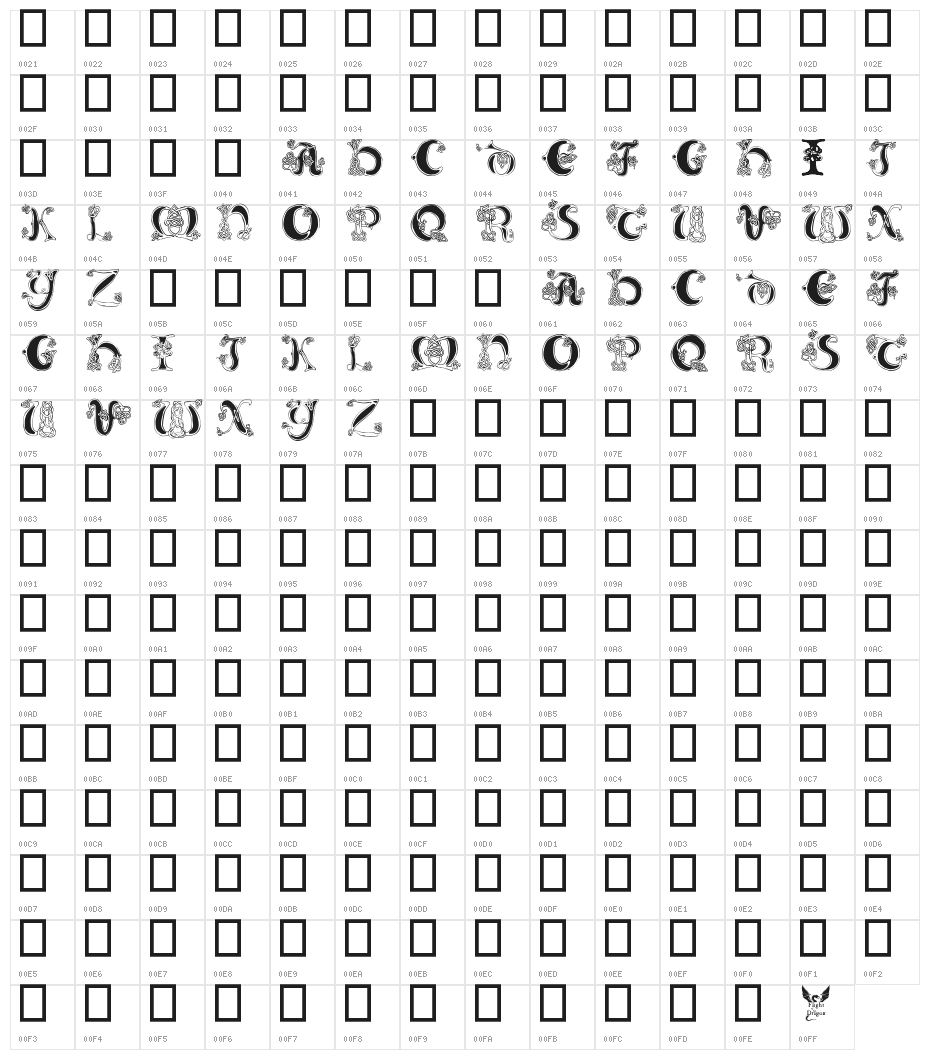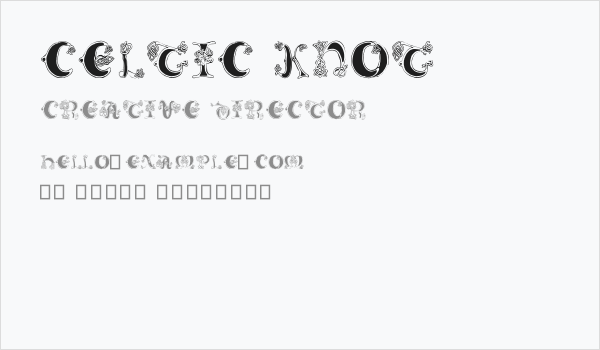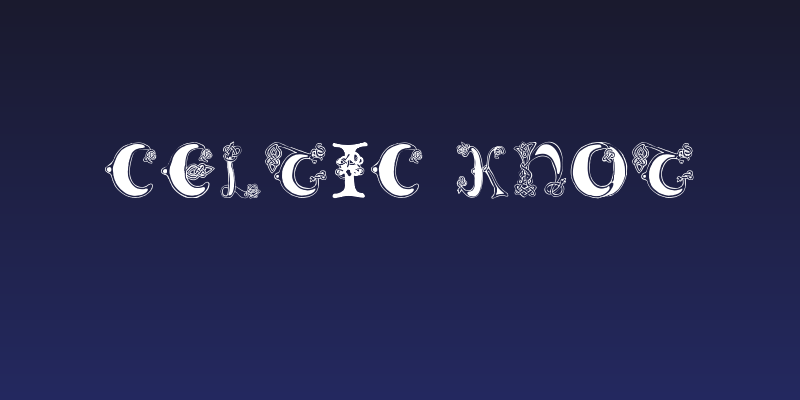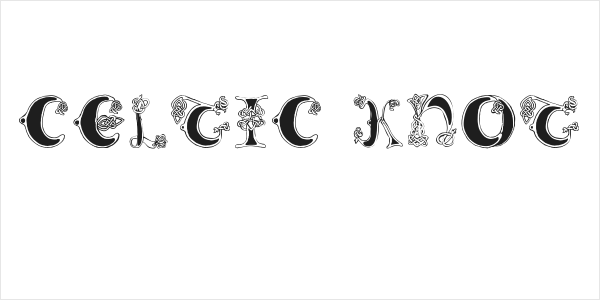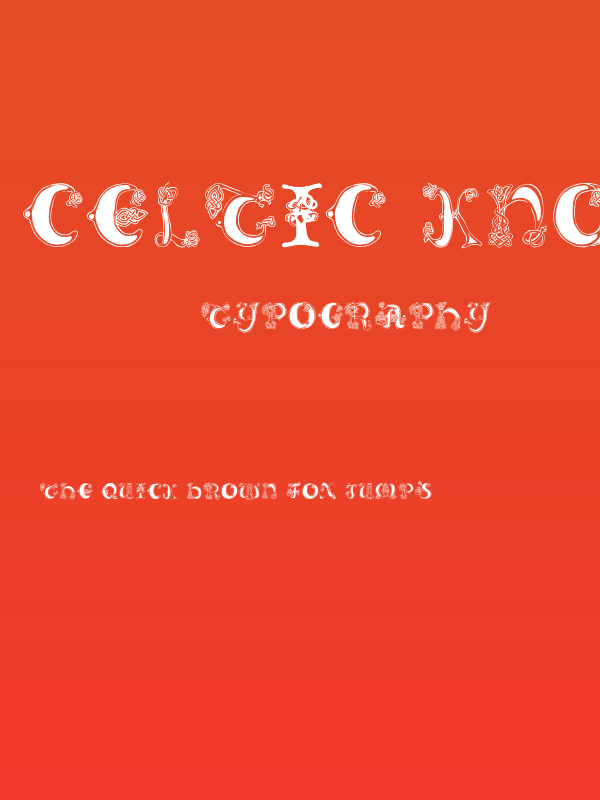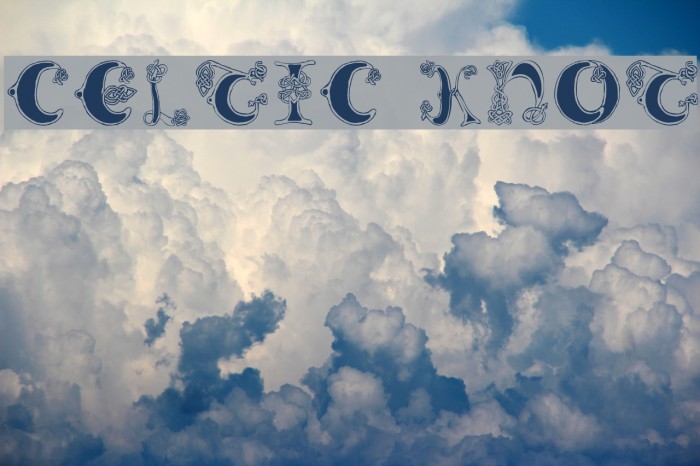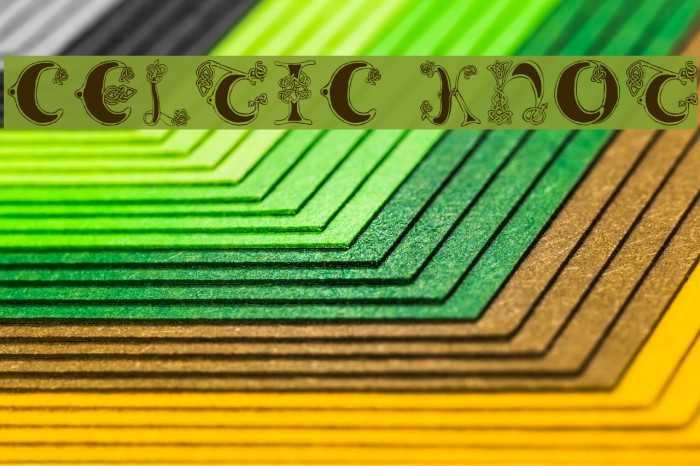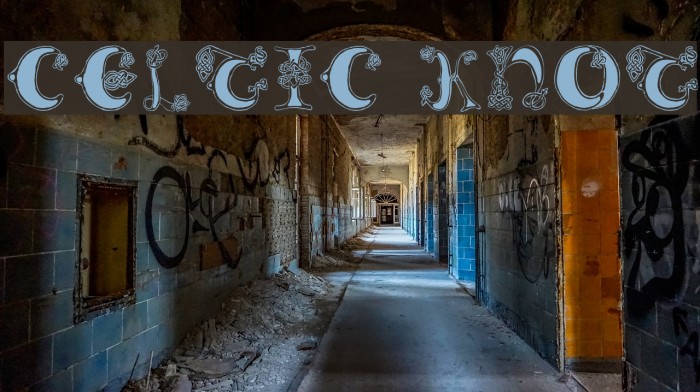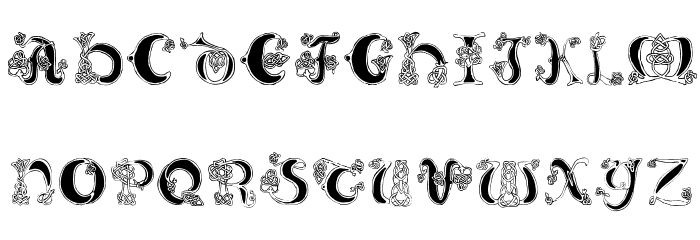
Celtic Knot Font
Celtic Knot Description
This font is a decorative typeface inspired by traditional Celtic knot designs. Each letter is intricately woven with interlacing patterns that evoke the ancient art of Celtic craftsmanship. The uppercase and lowercase letters are adorned with elaborate loops and twists, creating a sense of movement and complexity. The font is highly ornamental, making it ideal for projects that require a touch of historical or cultural flair. Its unique style captures the essence of Celtic art, with each character standing out as a piece of art in its own right.
| Proposed Projects | Ideal for use in themed invitations, historical or cultural event posters, book covers, and artistic projects that require a Celtic aesthetic. |